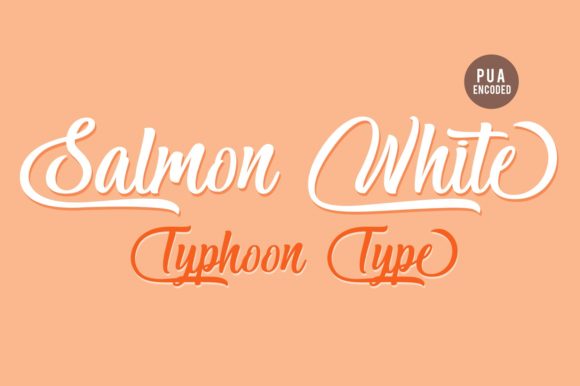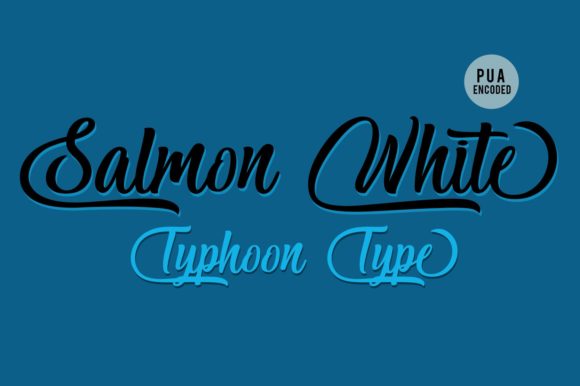
HomeScript FontsSalmon White Font Script Fonts Salmon White Font FacebookXPinterestWhatsApp Salmon White Font Poster 2 About Salmon White Font Salmon White is a fun and playful handwritten font with a cool twist! DOWNLOAD ON CREATIVE FABRICAThis font is sold and delivered by Creative Fabrica. Font Canyon may earn a commission if you buy through this link. People also explored Rollendo Font Stuby Font Bahagia Font Simple Signature Beskill Font Gangster Font Valentine Font Valentines Font Green Apple Font 356 0 TagsSalmon White Font Previous articleWrongler FontNext articleRaelynn Font LEAVE A REPLY Cancel reply Comment: Please enter your comment! Name:* Please enter your name here Email:* You have entered an incorrect email address! Please enter your email address here Website: Save my name, email, and website in this browser for the next time I comment. Personal Use Free William Personal Use Free Read more about this font Beloved Script Personal Use Free Read more about this font Rennoya Personal Use Free Read more about this font Stigma Font Personal Use Free Read more about this font BLOG Where to Buy American Fonts Online in 2024 Where to Buy American Fonts Online: The Ultimate Guide for 2024 Looking for the perfect American font to elevate your design projects? You're in the... Free vs Paid Fonts: Why Investing in Premium Fonts Is Worth It Using Fonts in Digital Marketing: Tips to Strengthen Your Brand Identity 5 Fonts That Will Dominate Design Trends in 2026